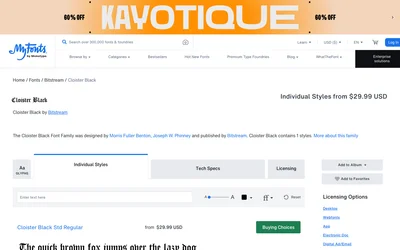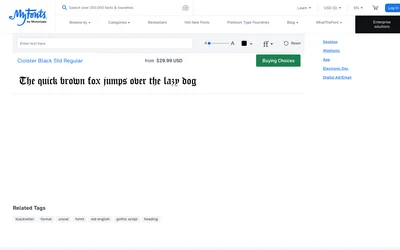
Cloister Black vs Knockout
Cloister Black and Knockout are both display typefaces sharing a display foundation. Where Cloister Black leans blackletter, retro, Knockout brings condensed, sports. Compare which suits your Editorial project.
| Feature | Cloister Black | Knockout |
| Classification | display | display |
| Source | URW Type Foundry | Hoefler&Co |
Recommended: Cloister Black
- blackletter, retro design character
- Suited for Branding
Consider: Knockout
- condensed, sports design character
- Suited for Sports and Headlines